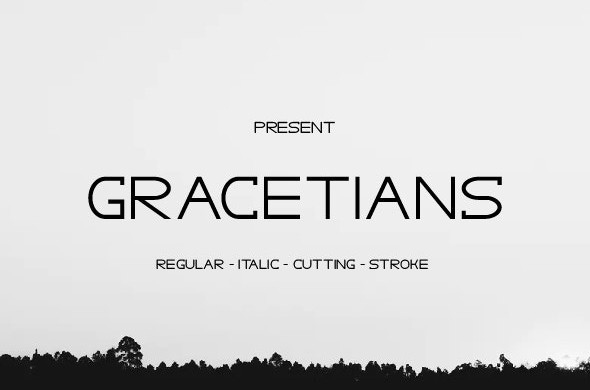
Gracetians Font
Gracetians Font is perfect for elegant branding, luxury packaging, sophisticated logos, premium editorial design, high-end advertising, fashion campaigns, boutique signage, wedding materials, refined stationery, and graceful visual communications. This distinguished typeface excels in both digital and print applications requiring sophisticated elegance.
Gracetians Font is exciting because it delivers timeless sophistication with refined letterforms that create luxurious visual appeal while maintaining exceptional clarity and readability. Its graceful character generates premium brand experiences that resonate with discerning audiences seeking quality, refinement, and sophisticated design excellence.
The Gracetians Font family includes regular, bold, light, italic, condensed, extended, and ornamental variants, providing designers with comprehensive typographic options for various design scenarios and luxury communication requirements.
Gracetians Font embodies the essence of typographic grace, combining classical elegance with contemporary functionality to create letterforms that represent the highest standards of sophisticated design and visual refinement. This distinguished typeface reflects luxury aesthetics and premium quality, making it ideal for brands that demand exceptional visual communication and elevated market positioning. The font's graceful character makes it particularly valuable for luxury fashion houses, premium beauty brands, high-end hospitality, and exclusive service providers that require typography capable of conveying elegance, sophistication, and superior craftsmanship.
The architectural precision of Gracetians Font demonstrates masterful understanding of elegant design principles, with carefully balanced proportions and sophisticated details that create harmonious compositions worthy of the most demanding luxury applications. This meticulous craftsmanship ensures superior performance across premium environments, from intimate boutique settings to grand advertising campaigns requiring ultimate refinement. The font's luxurious qualities make it especially effective for brands in fine arts, luxury travel, premium wellness, and cultural institutions that celebrate beauty and exceptional quality.
Creative professionals working with Gracetians Font Free Download will appreciate the typeface's exceptional versatility across luxury and contemporary design challenges. Its sophisticated styling bridges traditional elegance with modern luxury aesthetics, making it suitable for heritage premium brands and innovative luxury startups requiring distinguished, memorable typography. The font's prestigious presence makes it particularly effective for luxury real estate, fine dining establishments, cultural events, and premium lifestyle services that must communicate excellence through refined, beautiful visual design.
Whether developing luxury brand identities, creating premium communications, or designing exclusive marketing materials, Gracetians Font provides the typographic sophistication needed for communications that inspire desire and convey premium value while maintaining distinguished appeal and achieving exceptional market positioning across all luxury channels requiring graceful elegance.